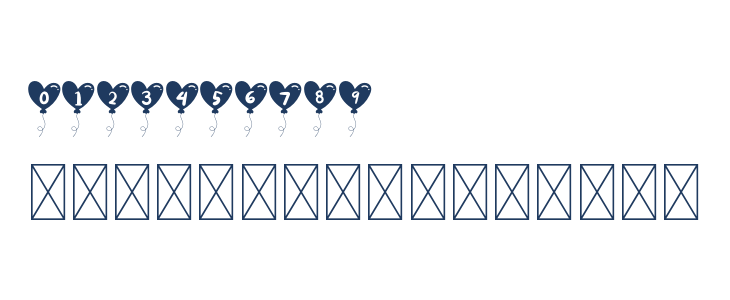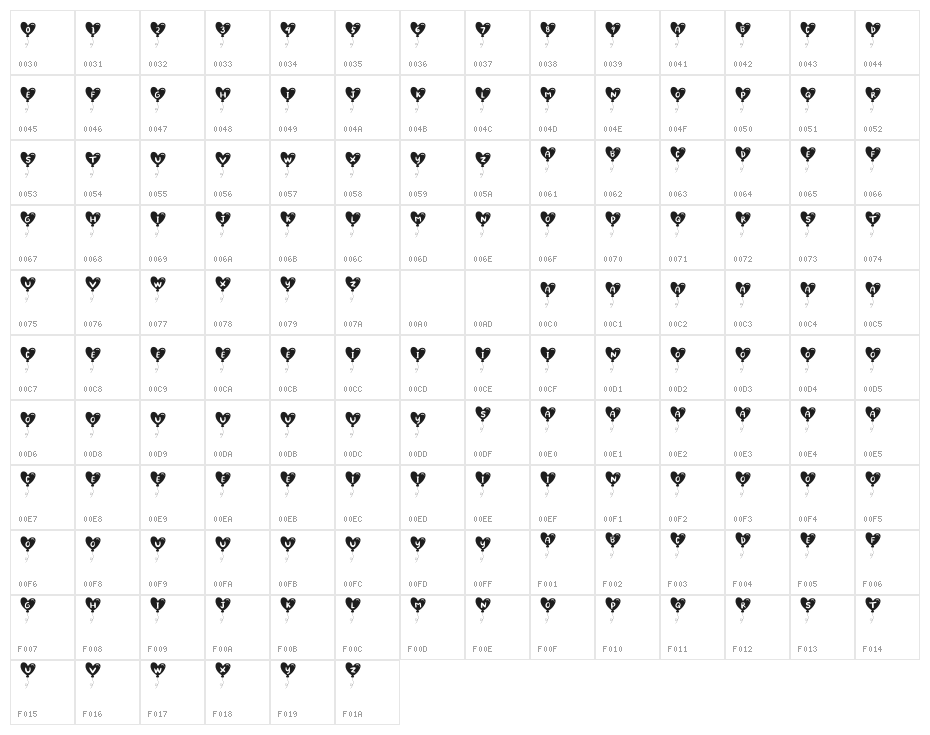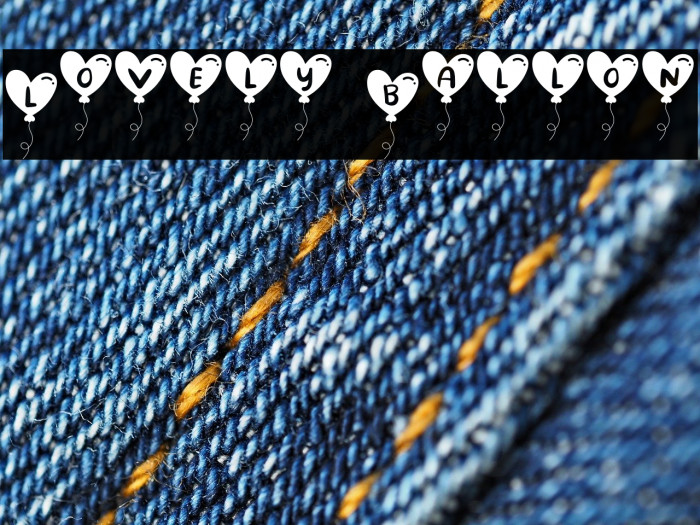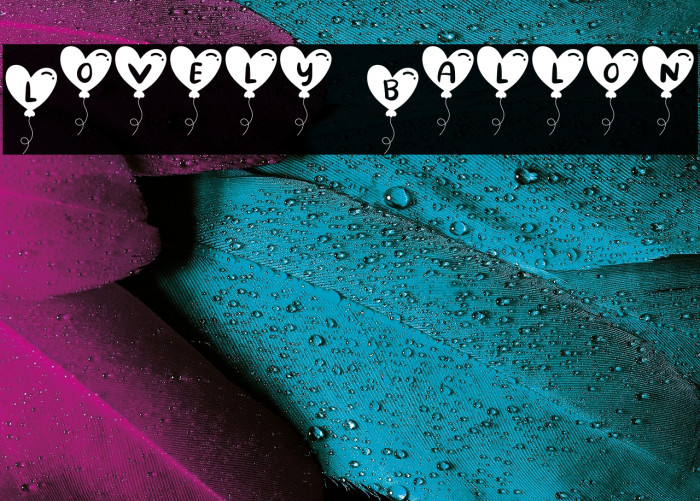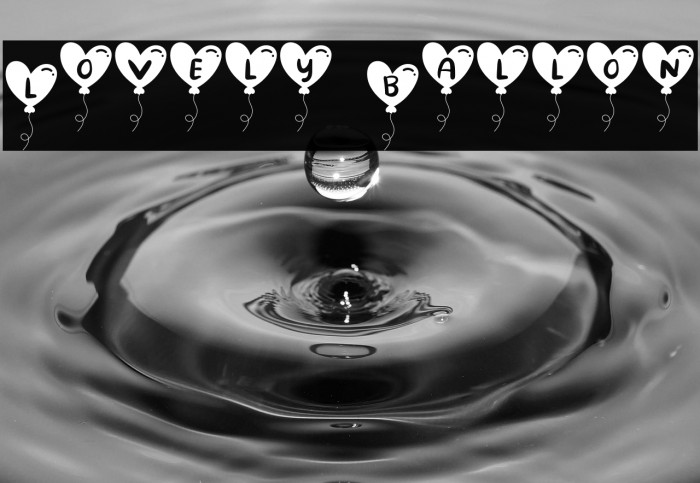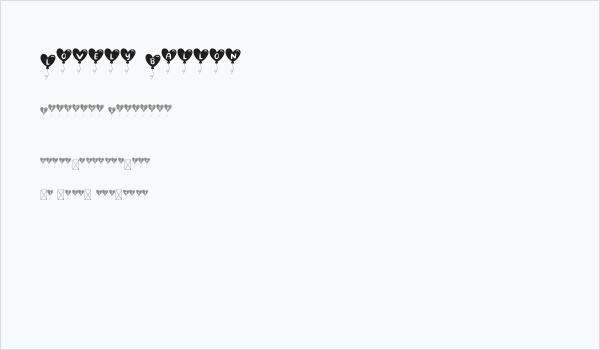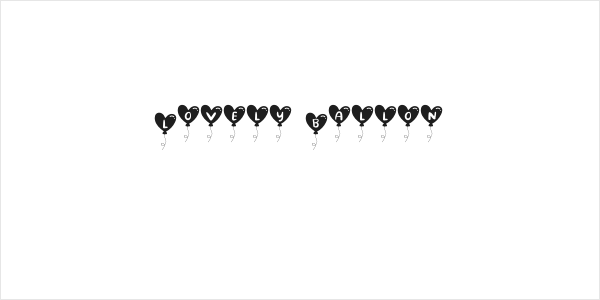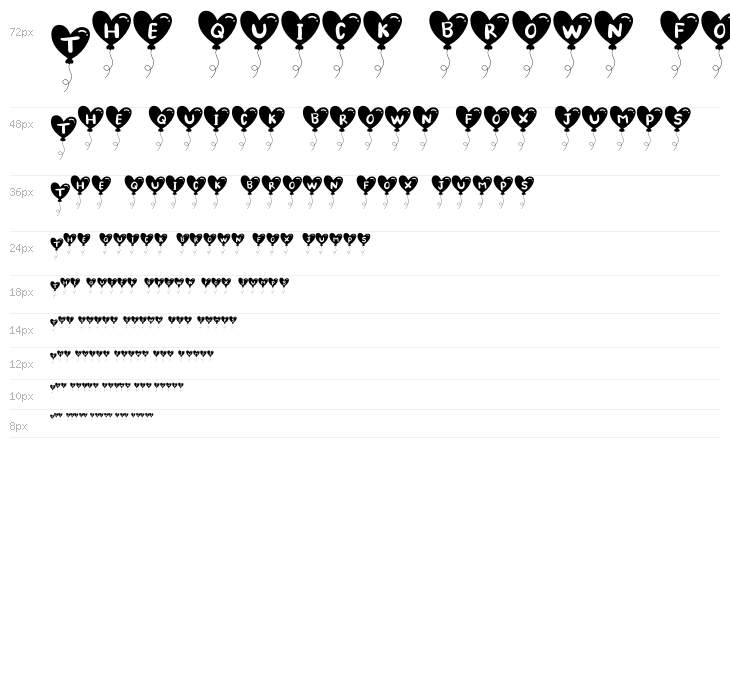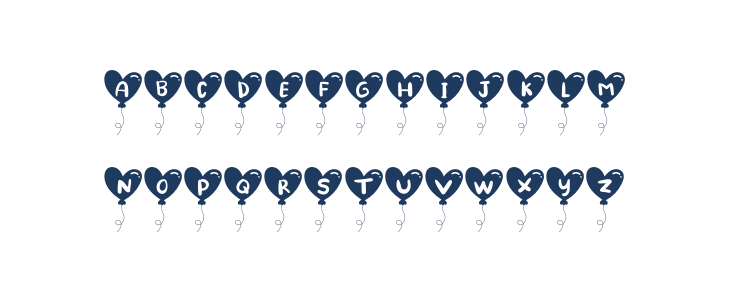
Lovely Ballon Font
Lovely Ballon Description
This whimsical and playful font features characters enclosed within heart-shaped balloons, each with a small string attached, giving the impression of floating letters. The design is consistent across uppercase, lowercase, and numeric characters, maintaining a uniform heart shape that adds a touch of romance and fun. The bold, black fill of the balloons contrasts sharply with the white letters inside, making each character stand out distinctly. The font is ideal for projects that require a light-hearted, festive, or romantic theme, such as invitations, greeting cards, or children's party decorations. The unique style of this font makes it a perfect choice for designs that aim to convey joy and celebration.
Overall StylePlayful, Romantic
Use CaseHeadlines, Logos, Decorative text
Proposed ProjectsPerfect for invitations, greeting cards, children's party decorations, and festive banners.